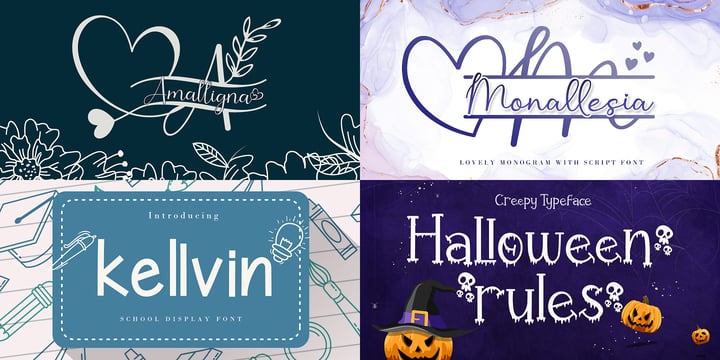
Crafters Wish Font Bundle
Crafter’s Wish Font Bundle is packed with 50 modern and playful typefaces – including multiple styles to fit every crafting need.
Give your designs a fun feel because each font has its own magical design. You can use it for almost anything like t-shirts, clothing, book covers, stickers, business cards, greeting cards, branding, blog headers, posters, wedding elements, invitations, magazines and quotes, and more.